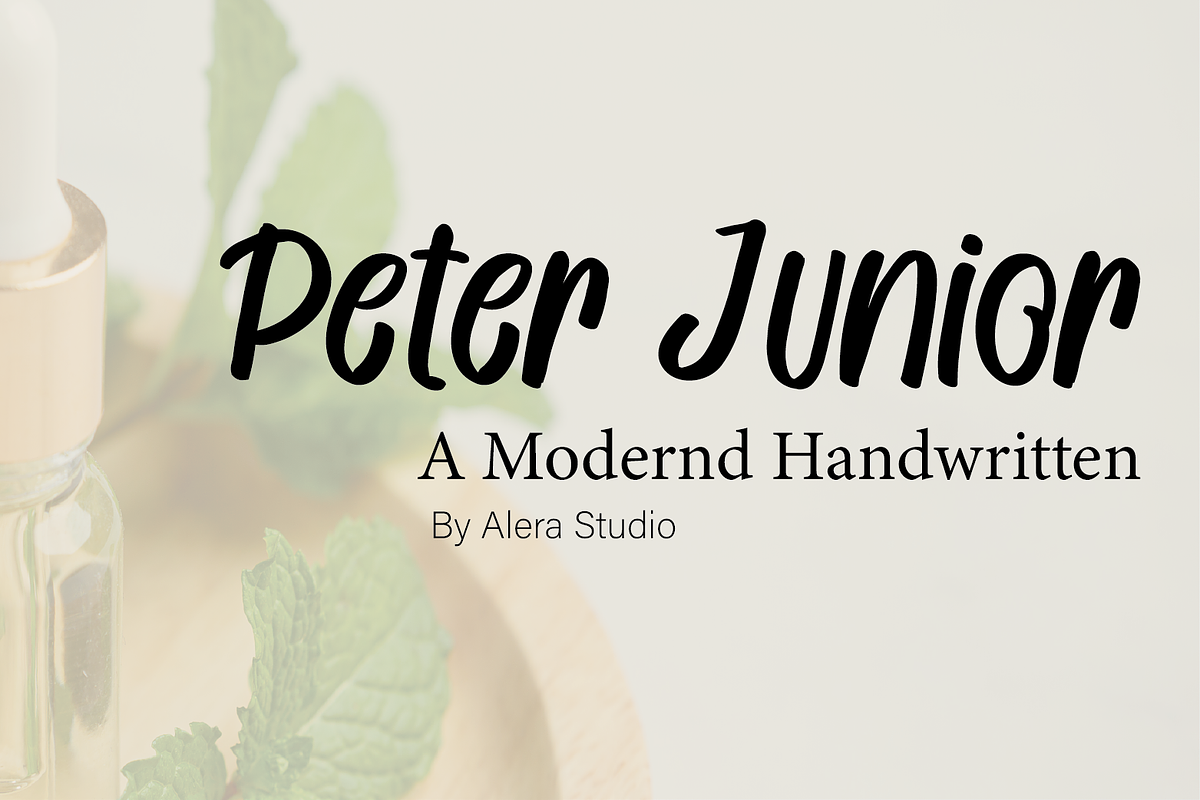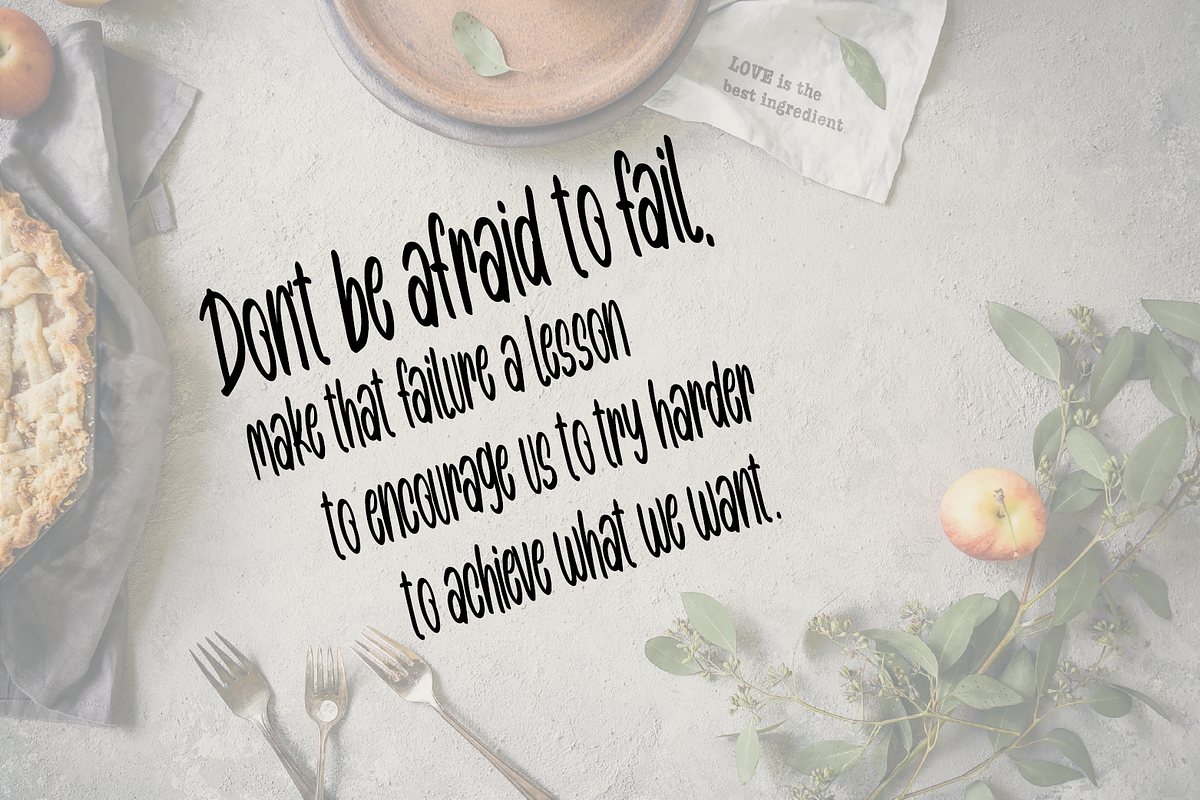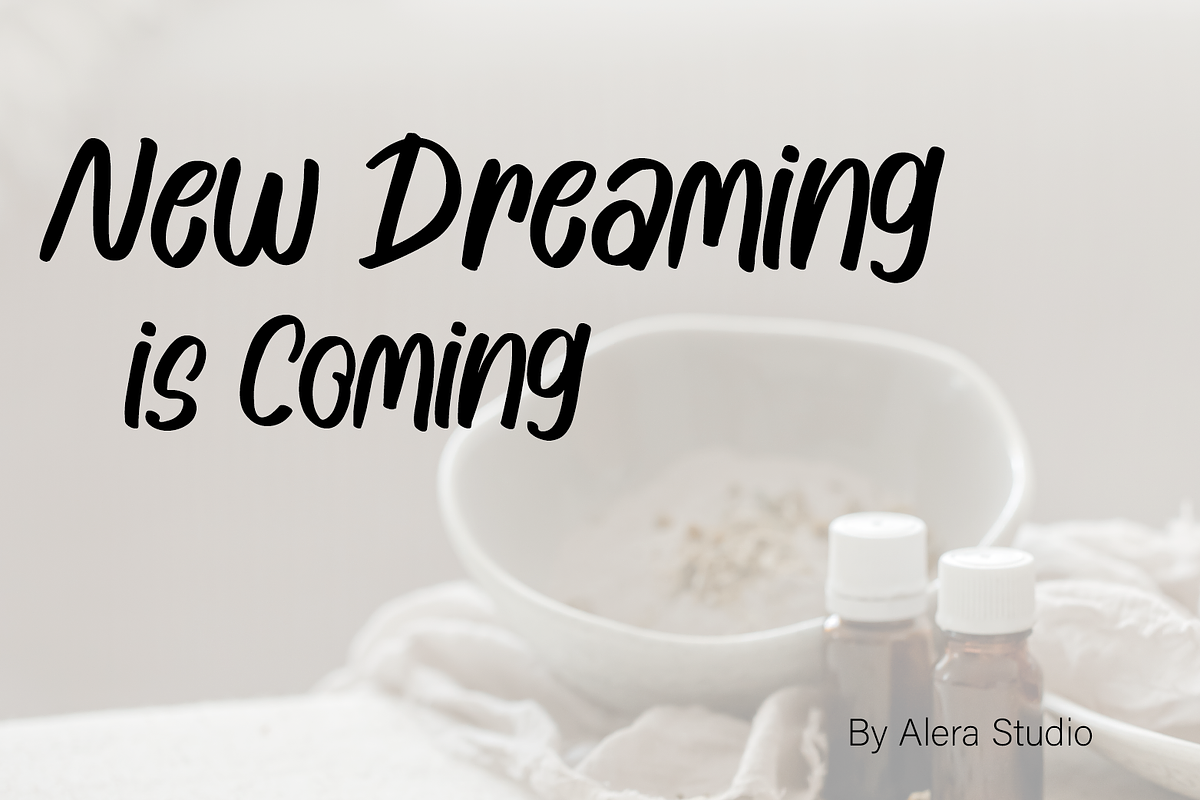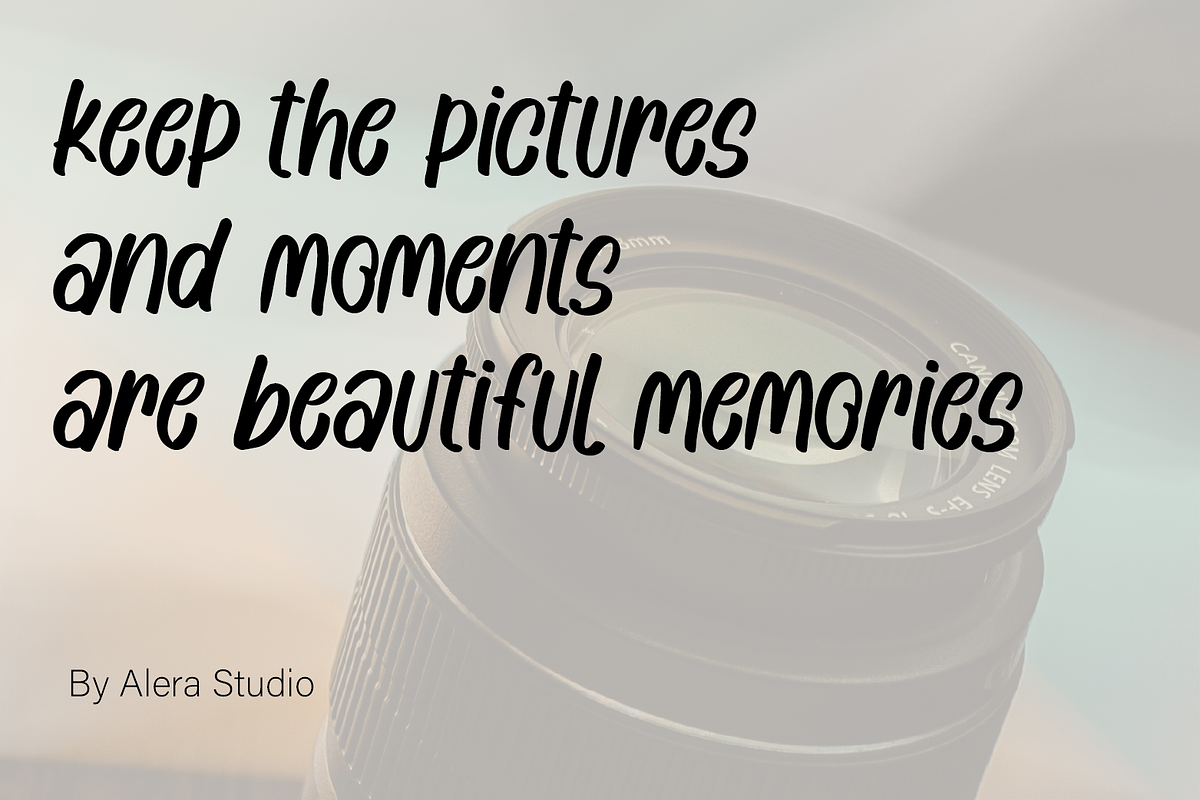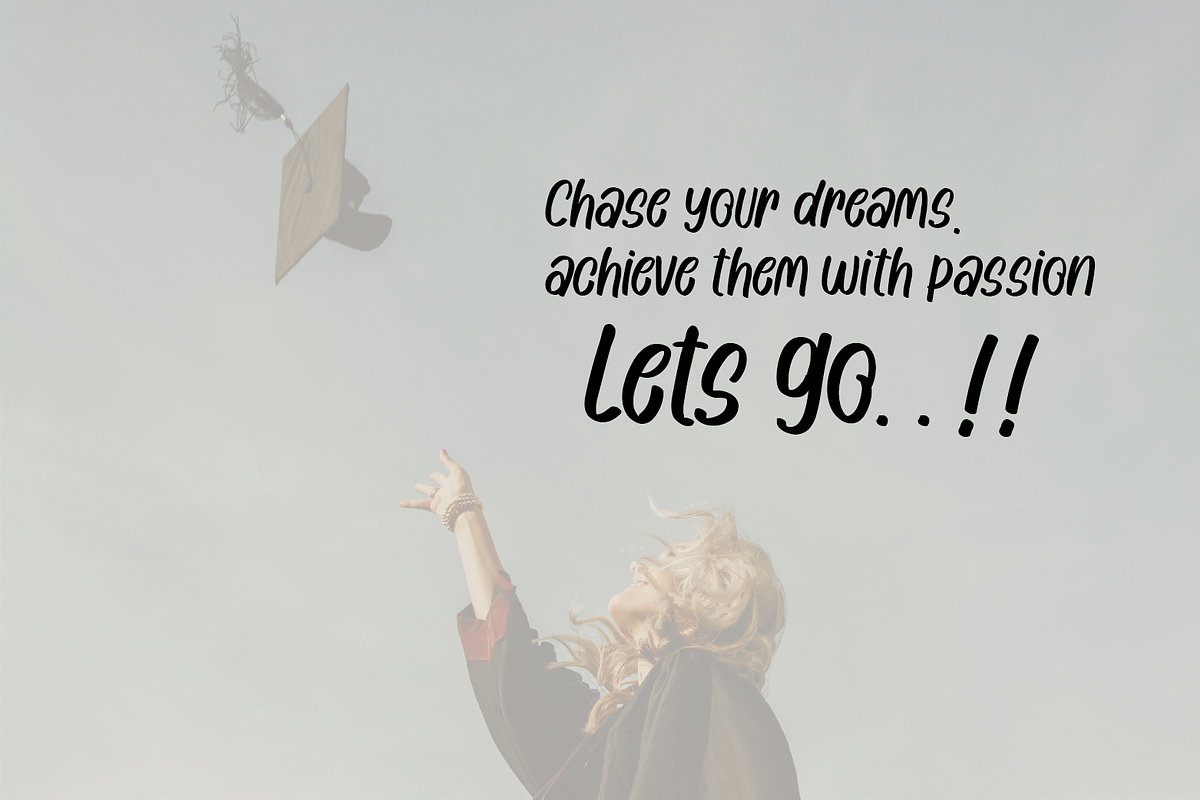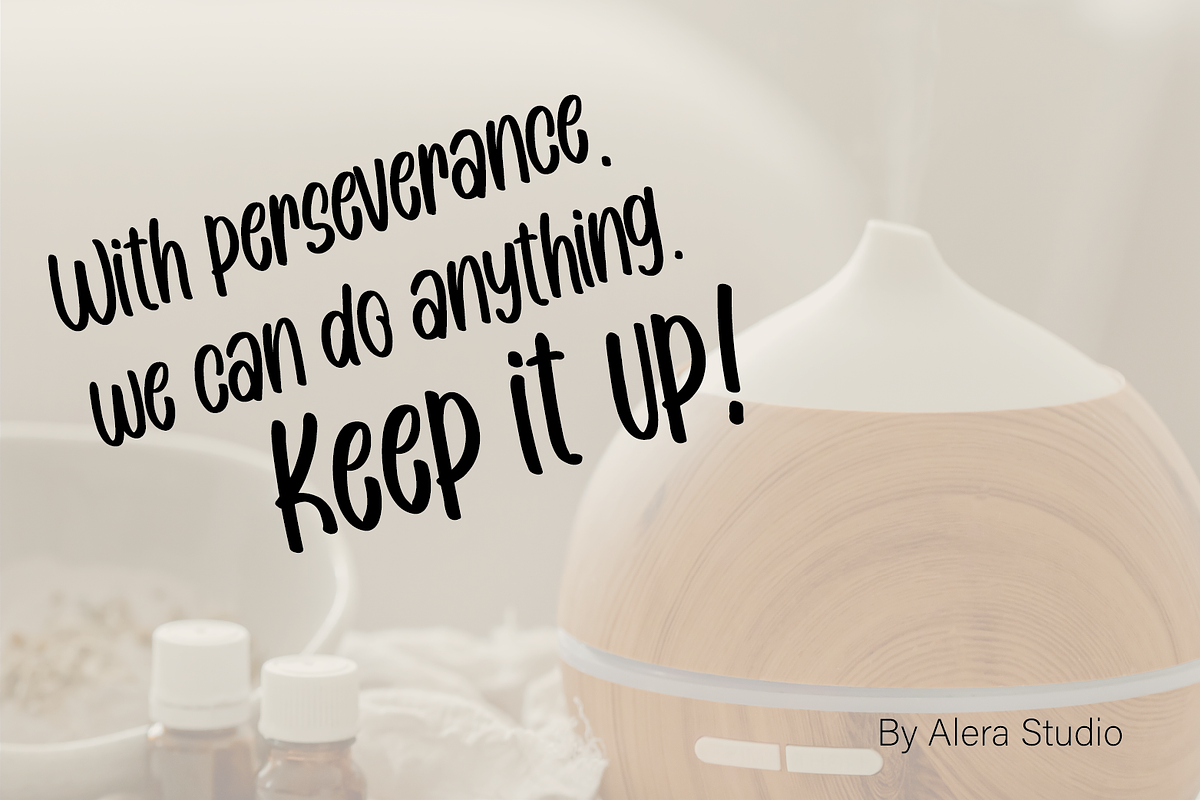
Peter Junior
Peter Junior Font, a handwritten font inspired by handwriting with an aesthetic touch.
Peter Junior is versatile enough for both web and print and can be used in a variety of projects such as stationery, packaging, apparel, wedding stationery, prints, quotes, social media graphics, planners, greeting cards, logos, branding, and much much more.